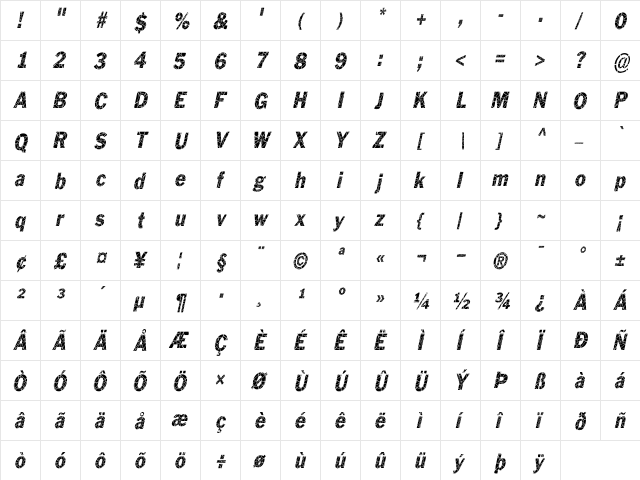
Philadelphia-Cracked-Condensed Italic Font Preview
Design Context for Philadelphia-Cracked-Condensed Typeface
Philadelphia-Cracked-Condensed takes a measured approach to typography — its balanced proportions and neutral character make it a reliable workhorse for both digital and print work. The dynamic lean of this cut emphasises speed and emphasis in any layout. The condensed width makes it efficient for tight spaces without sacrificing legibility.
Pro Tip: Use Philadelphia-Cracked-Condensed for emphasis, pull quotes, and subheadings where its slanted energy can add rhythm to the layout.